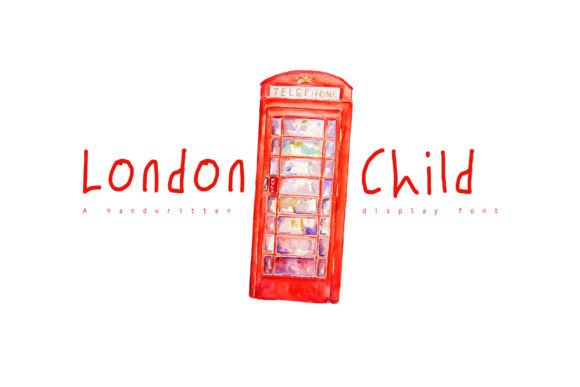
Enter the enchanting world of London Child, a captivating script font family that captures the innocent and playful charm of a child's writing. Inspired by the curiosity and creativity of young learners, this font exudes a delightful sense of joy and carefree spirit. Each letter and character is lovingly crafted with imperfect lines, wavy curves, and spontaneous flow, replicating the true essence of a child's unique penmanship.
With London Child, you have a versatile tool to bring life to your creative projects. Embark on a journey through children's book illustrations, playful branding, heartfelt invitations, and more. Unleash your imagination and let the endearing qualities of a child's writing shine through your designs.
Embrace the heartwarming nostalgia of London Child and evoke fond memories of early learning days. Share the magic of childhood with your creations and captivate the hearts of your audience with this delightful and authentic handwriting style.
Unlock the magic of London Child. Experience the joy, the innocence, and the sheer beauty of a child's handwriting. Allow your imagination to soar and create designs that resonate with the child within us all.